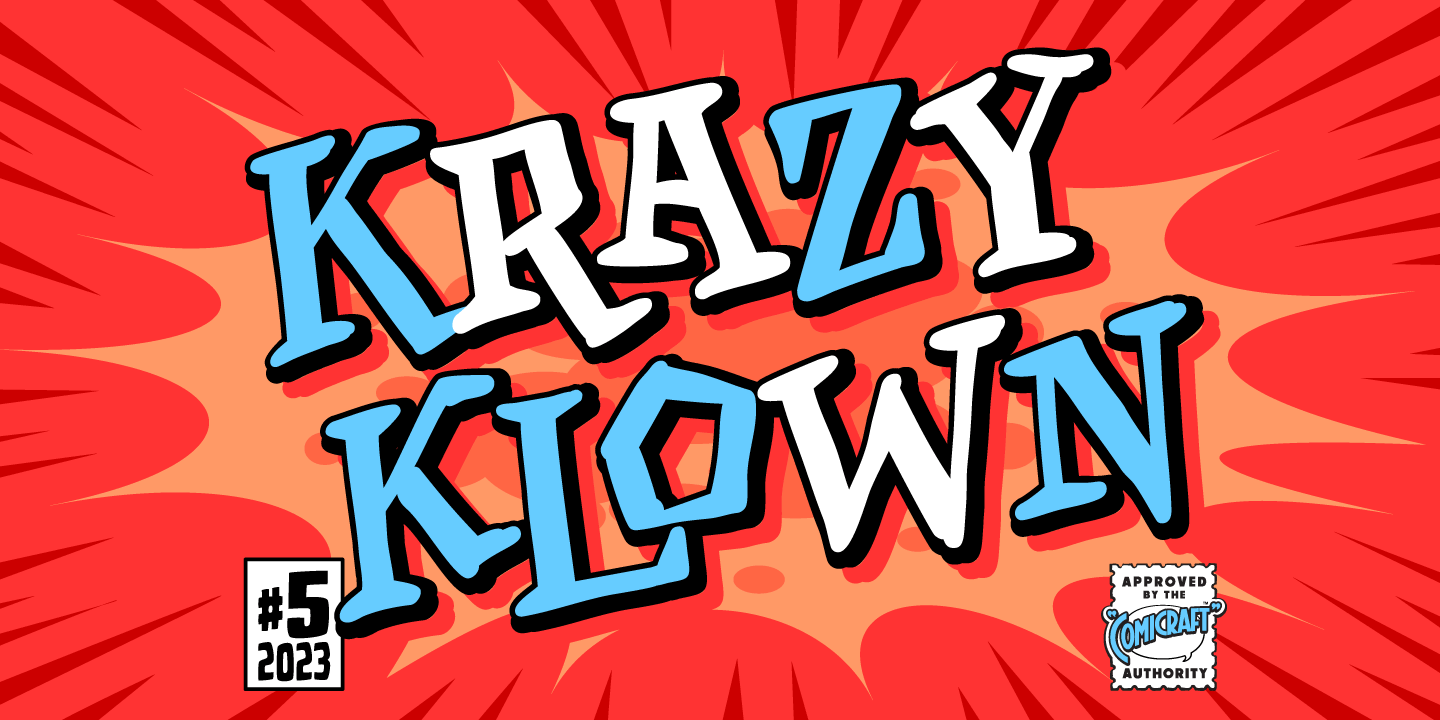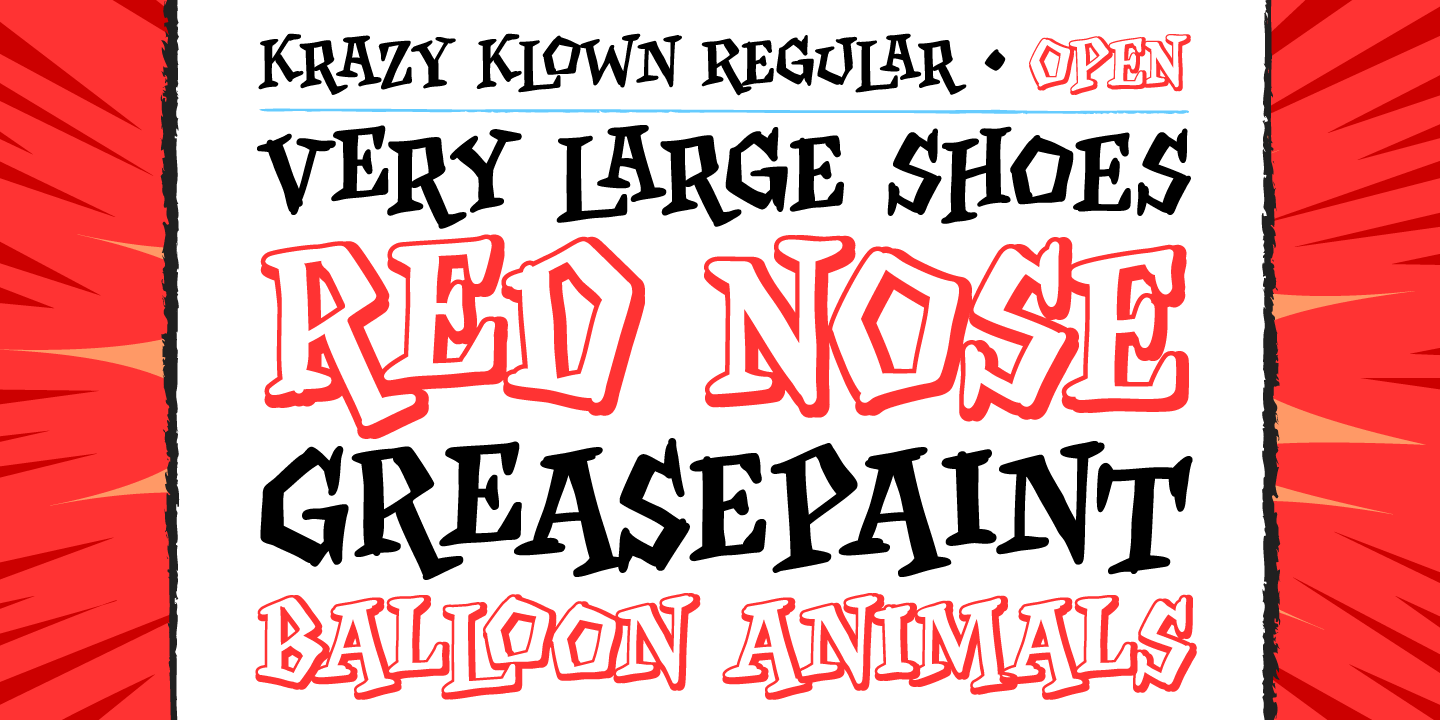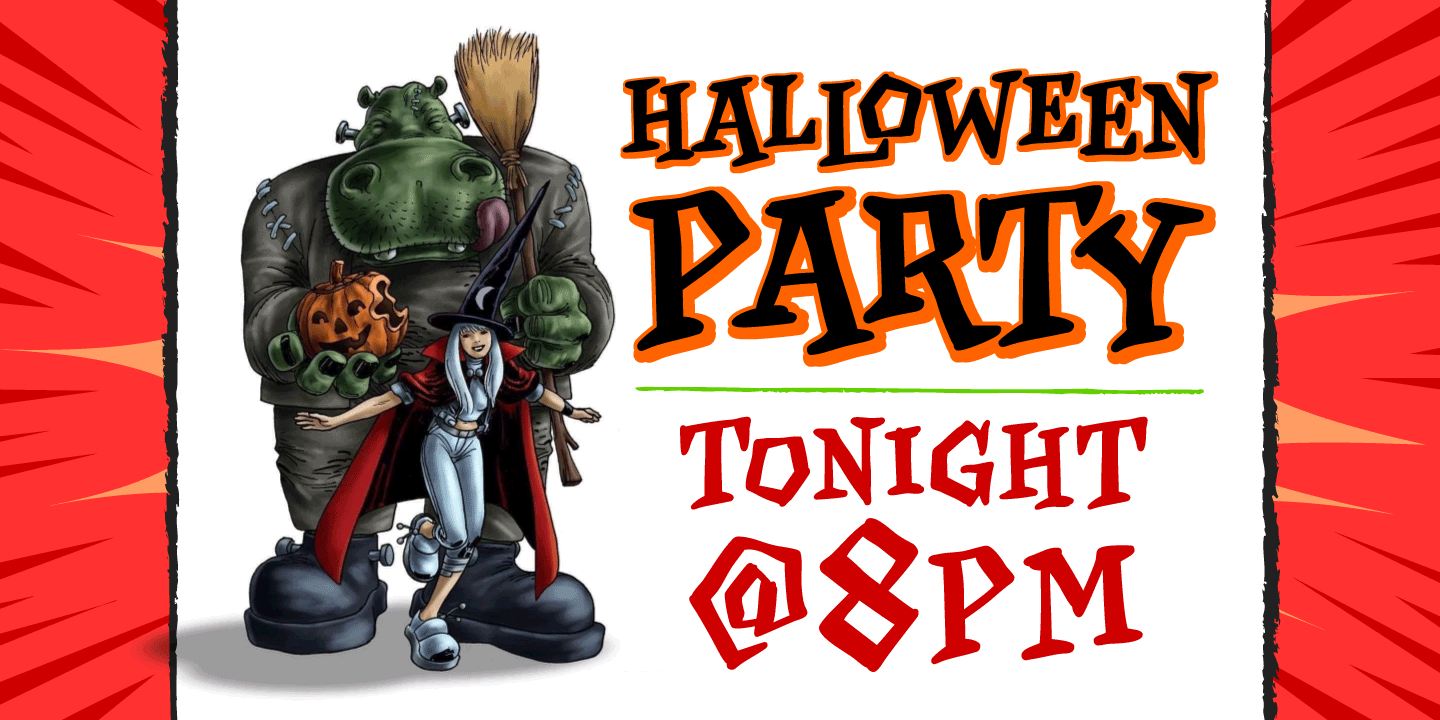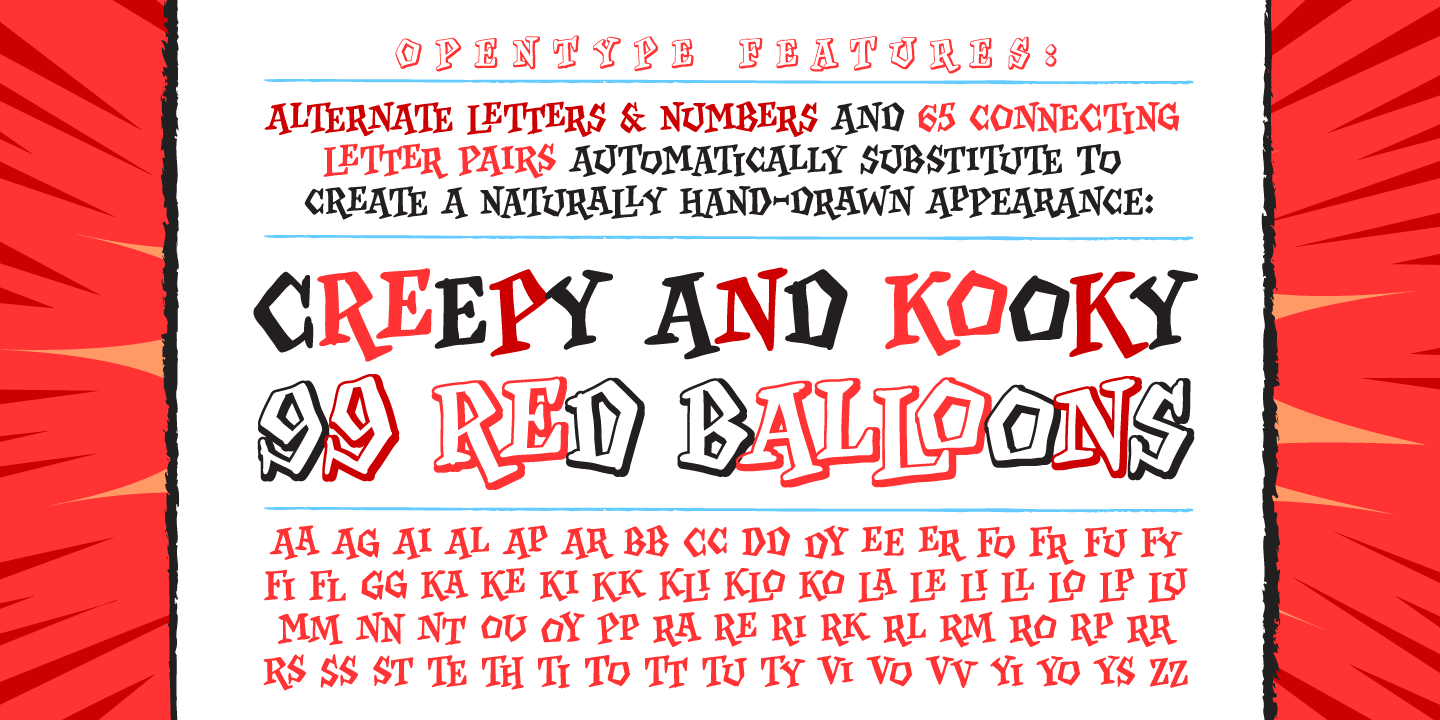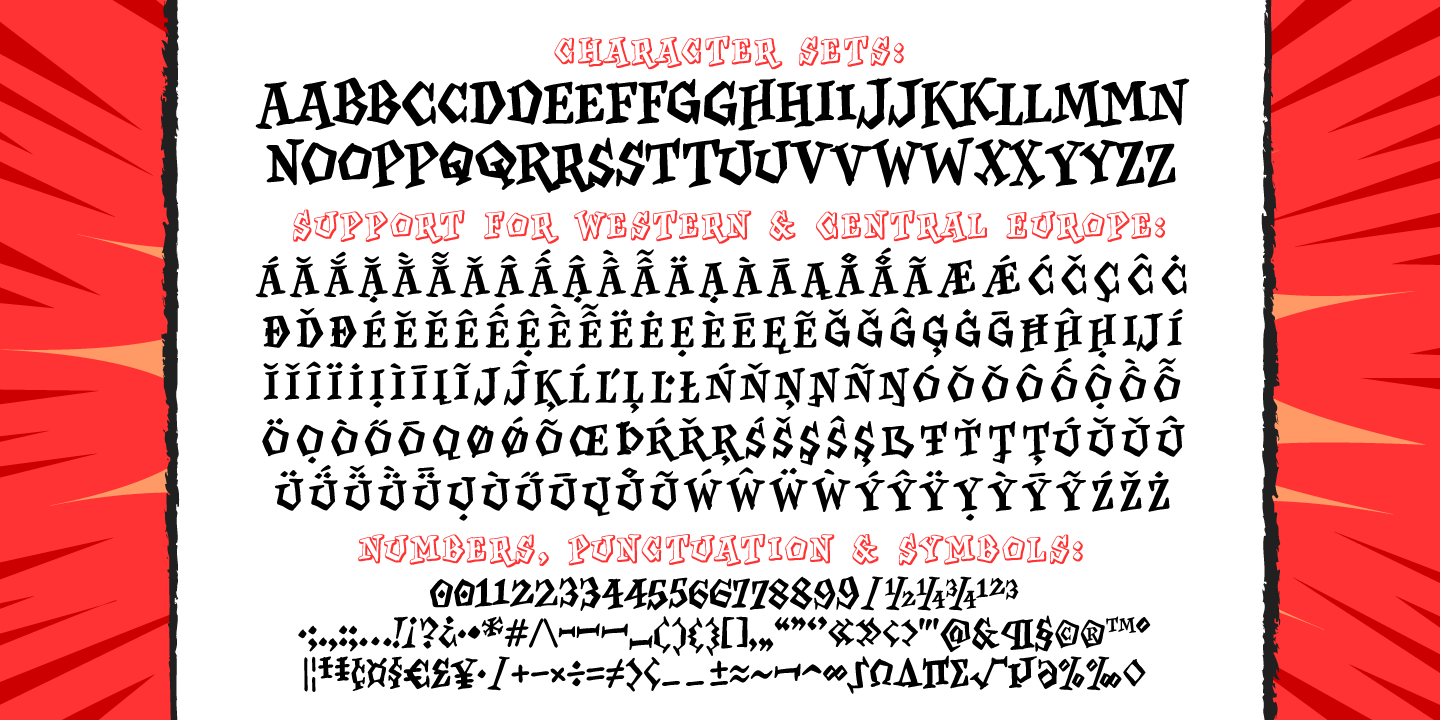
Krazy Klown
It’s Krusty! It’s a Krypt Kicker! It’s a Killer Kween! Its serifs are like dynamite with a Laser Beam!
KomiKraft’s new font Krazy Klown isn’t just white greasepaint and clown shoes, it’s hiding in the drain system ready to surprise you with alternate Kharakters, Killer ligatures and did we mention Krazy Klown shoes?
Kooky John K Roshell has kooked up a kinky font that is the perfect Kompliment to Monster Mash and Carry On Screaming. It’s a little bit Tiki and a whole lotta Kicky!